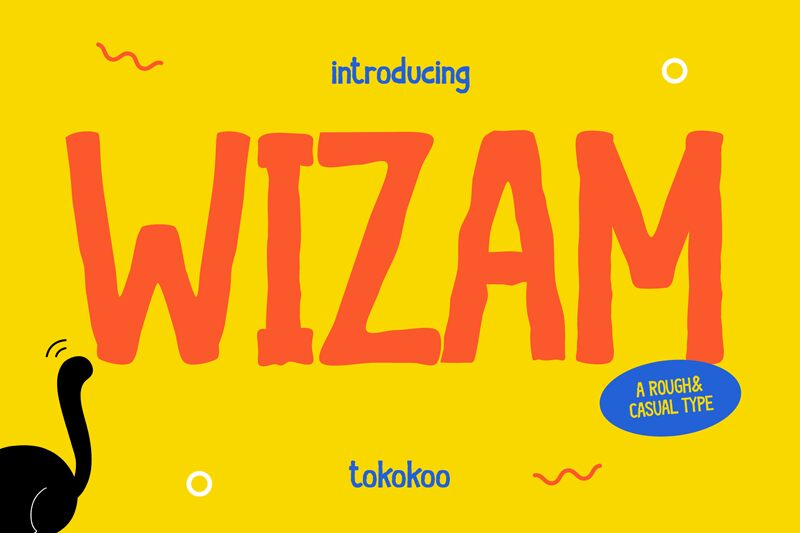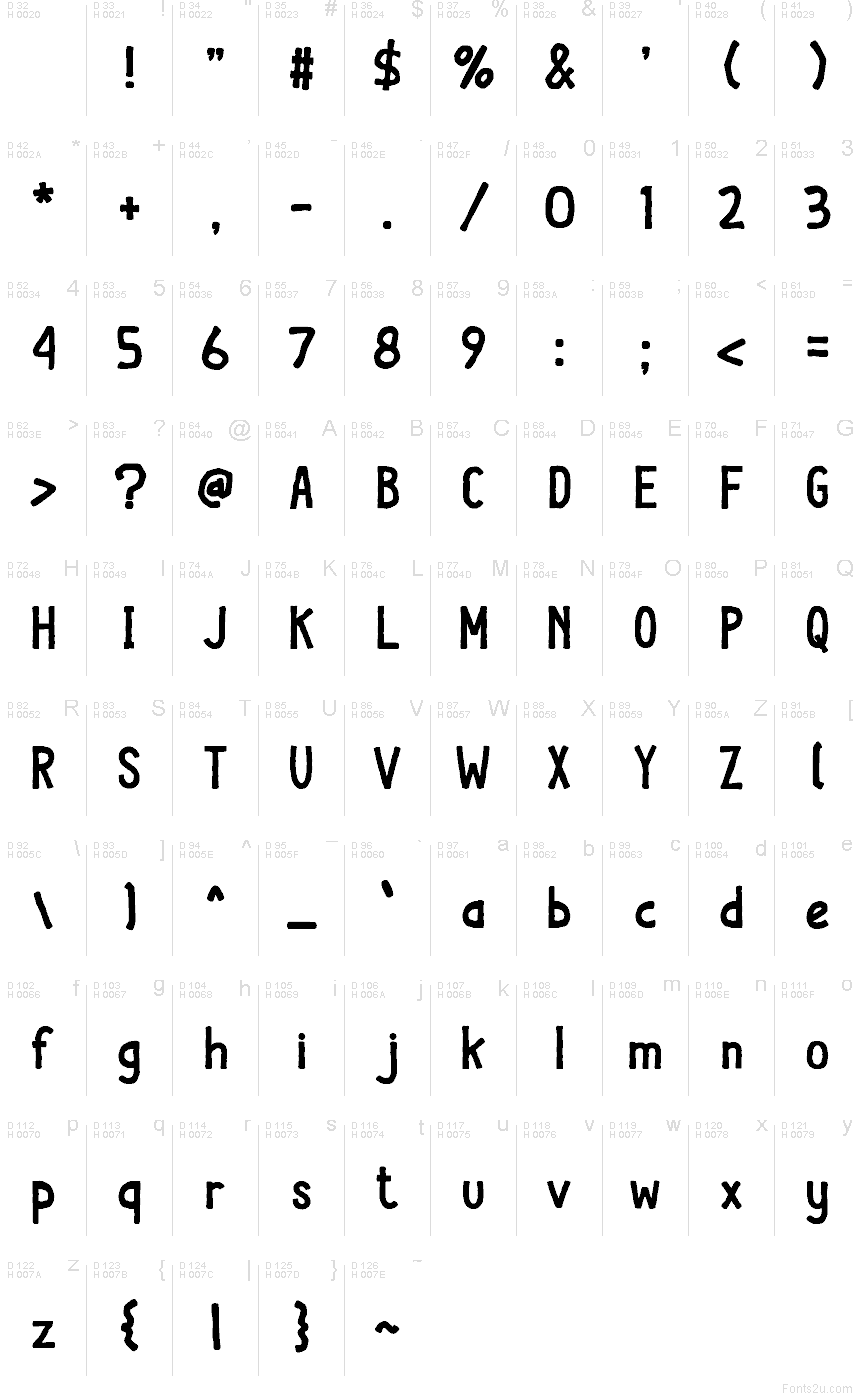
Wizam font by Tokokoo Studio is a free cartoon display typeface that looks like it was brushed onto a poster minutes before showtime. Tall, wobbly letters lean and stretch with a hand-drawn swagger, giving every word a slightly spooky, slightly silly energy. The chunky strokes feel inky and organic, like marker on cardboard, so headlines jump out with a playful, low-fi attitude that’s hard to ignore.
Using Wizam, your titles instantly feel like they belong on magic shows, Halloween parties, kids’ book covers, quirky game logos, street posters, or YouTube thumbnails. This free font shines in big sizes where its irregular edges and loose rhythm can really shout. Pair Wizam with a clean, simple sans serif for body text to keep things readable while the main lettering does all the wild, cartoonish talking.